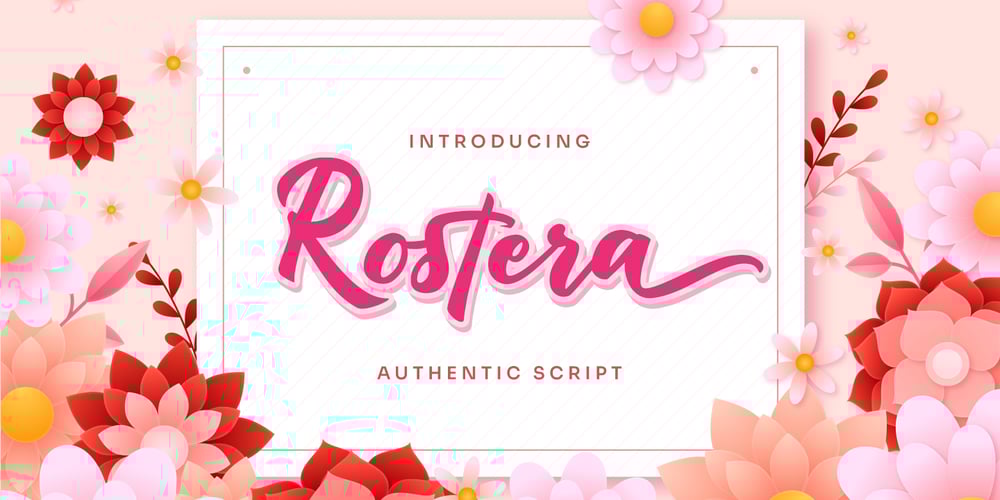
Rostera Font Family was designed by Abdul Malik Wisnu and published by Almarkha Type. Rostera contains 1 styles and family package options. Rostera – Authentic Script font with a natural handwritten feel. This handmade font will make your design has a beautiful natural touch for each details. It is perfect for any design project as Invitation,logo, book cover, craft or any design purposes.This font is PUA encoded which means you can access all of the magical glyphs and swashes with ease! It also features a wealth of special features including alternate glyphs and ligatures.